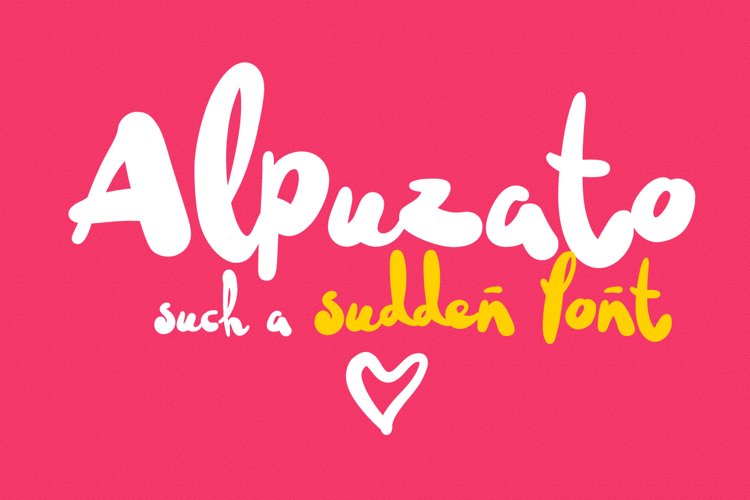
Alpuzato fresh Unique & superfunny brush freestyle font
Everybody loves black color, strict stylish, and elegant shapes. We strive to be perfect. Right? But...
Do not you think that we have lost something? Maybe a child's spontaneity? Alpuzato font back you at those perfect times when there was no need to be serious when the whole world was not so serious. If you want to uncompromising have fun, soar above the crowd, to show everyone how much you are free to just write something in Alpuzato font and you will know what real freedom is.